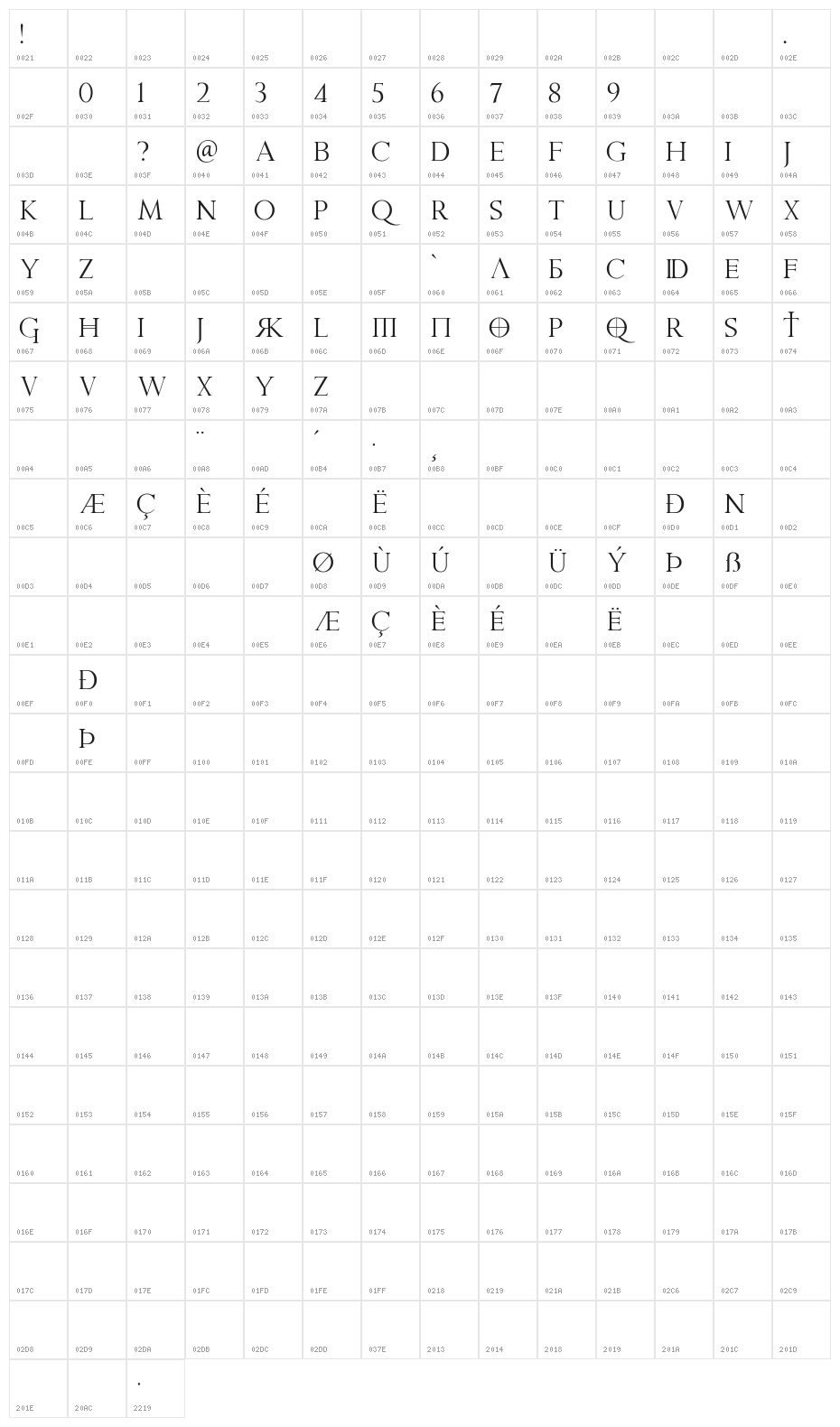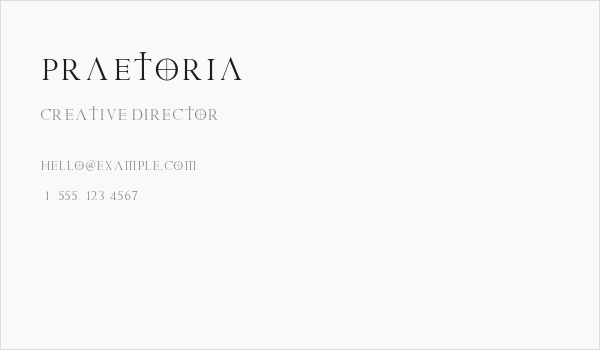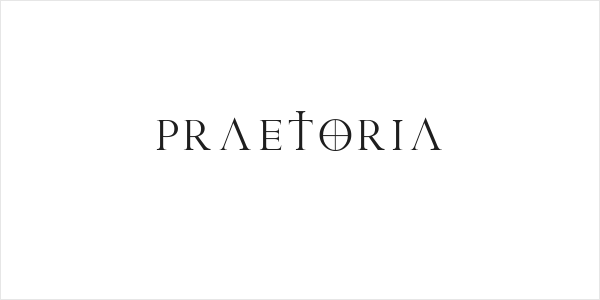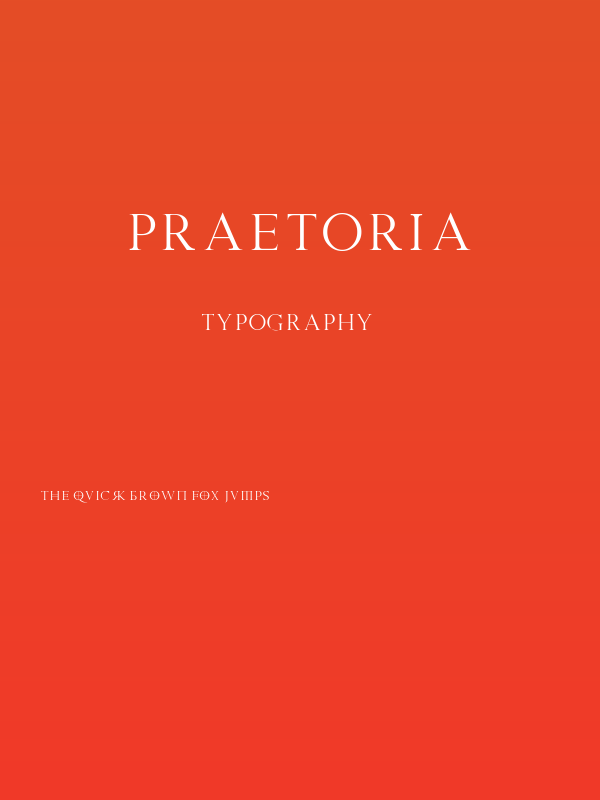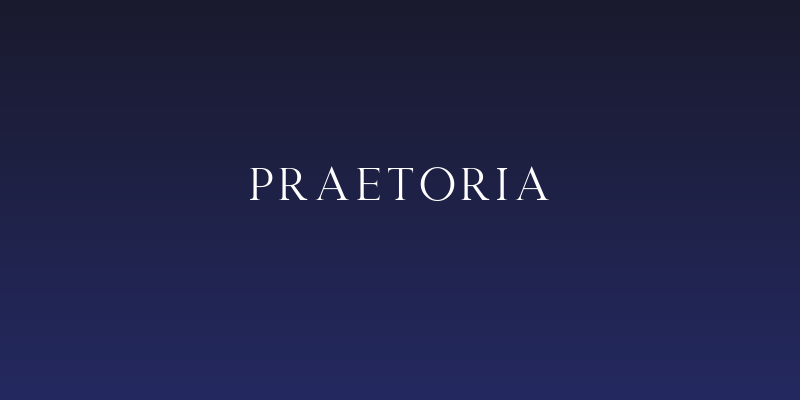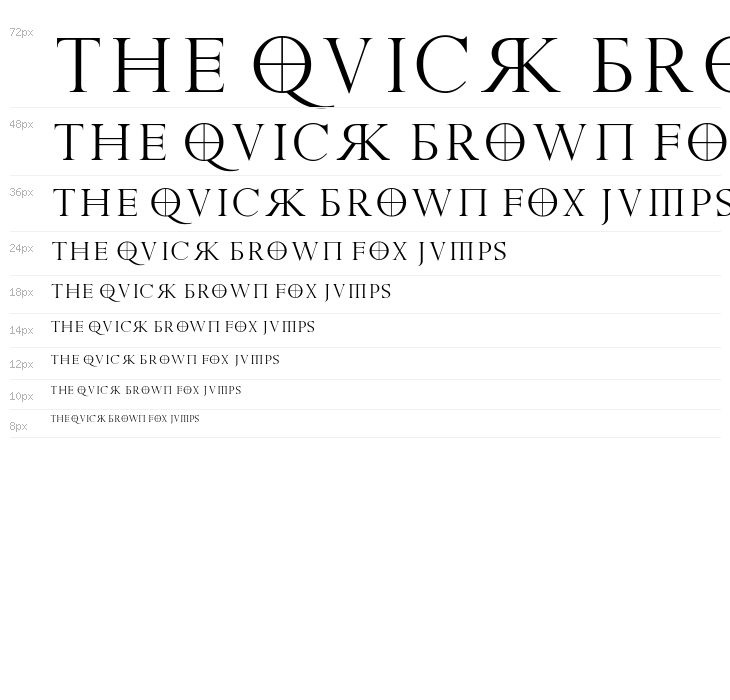
Praetoria Font
Praetoria Description
This font exhibits a classic and elegant serif style, characterized by its sharp, clean lines and high contrast between thick and thin strokes. The uppercase letters are distinct with a traditional Roman influence, featuring serifs that are both pronounced and refined. The numerals maintain a consistent style with the letters, offering a cohesive appearance. The special characters are designed to complement the overall aesthetic, adding to the font's versatility. This font is well-suited for formal and sophisticated design projects, where a touch of class and readability is essential.
| Proposed Projects | Ideal for book covers, formal invitations, branding, and editorial layouts. |